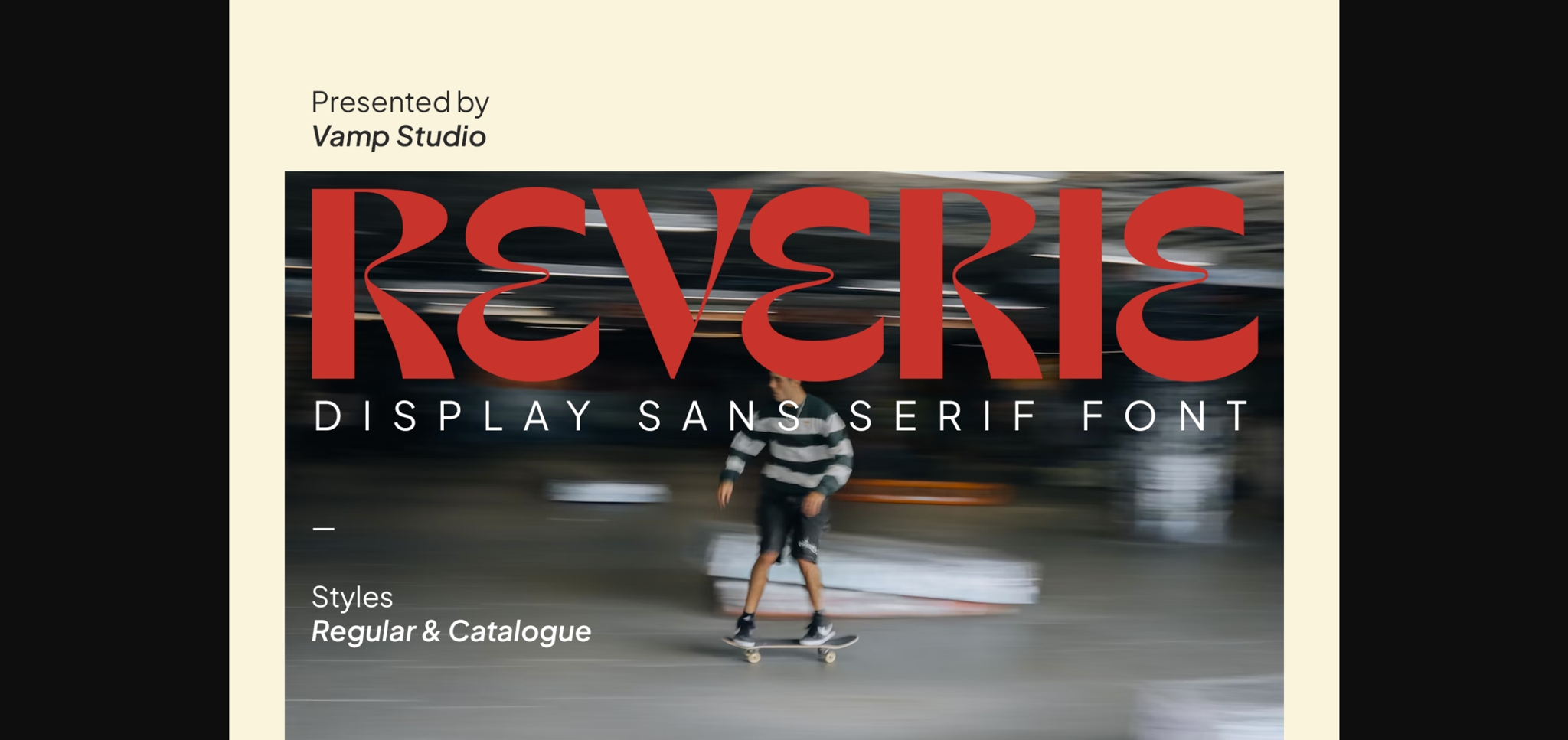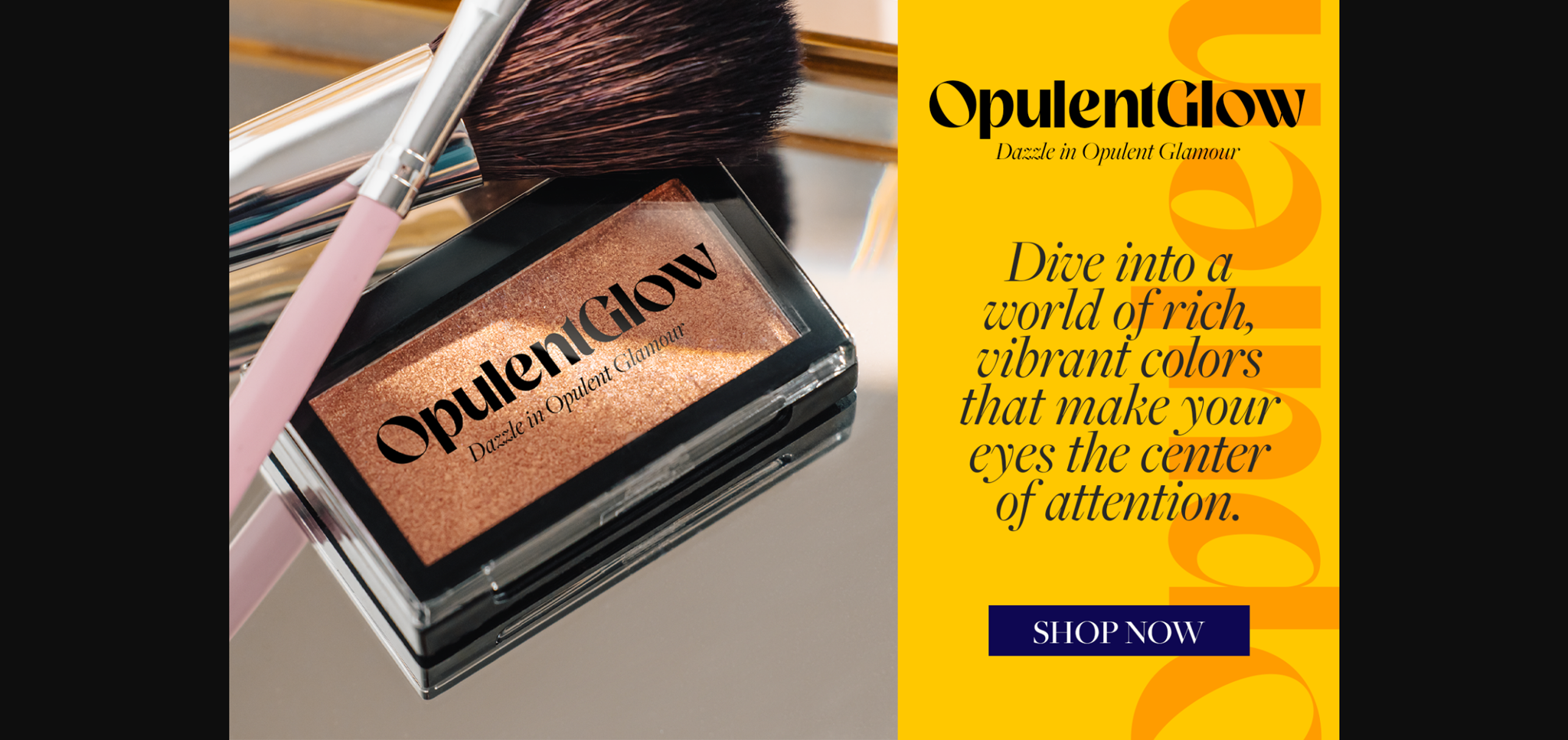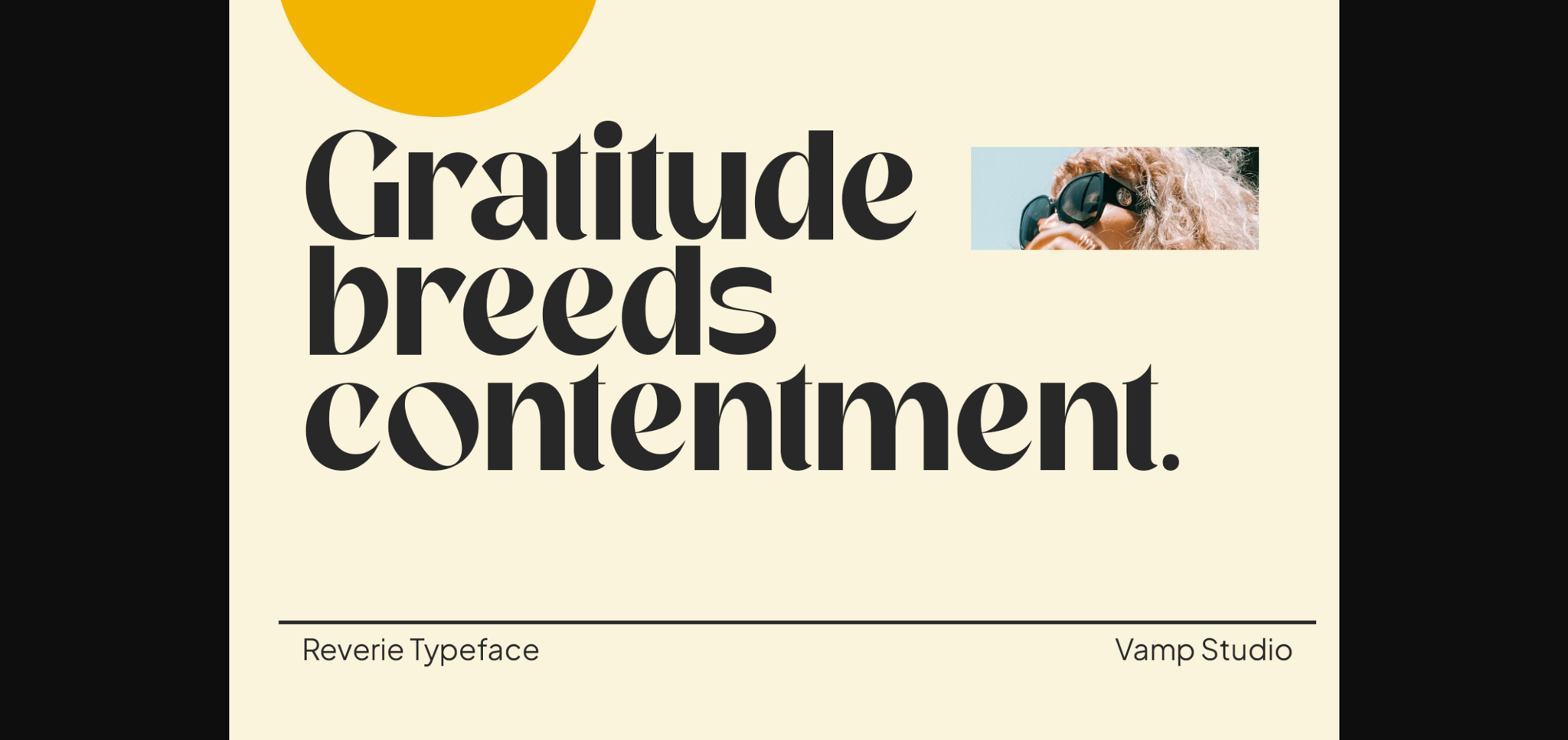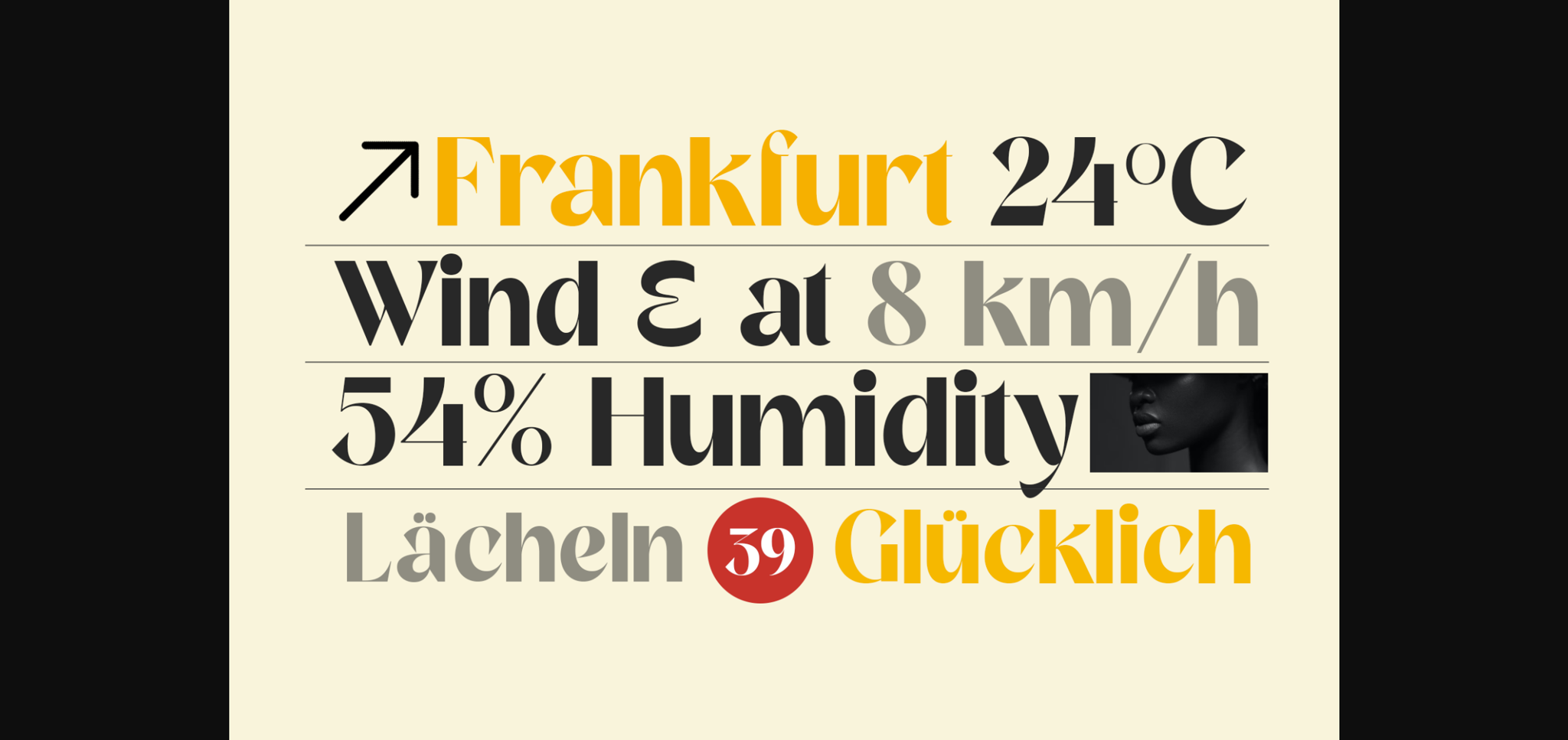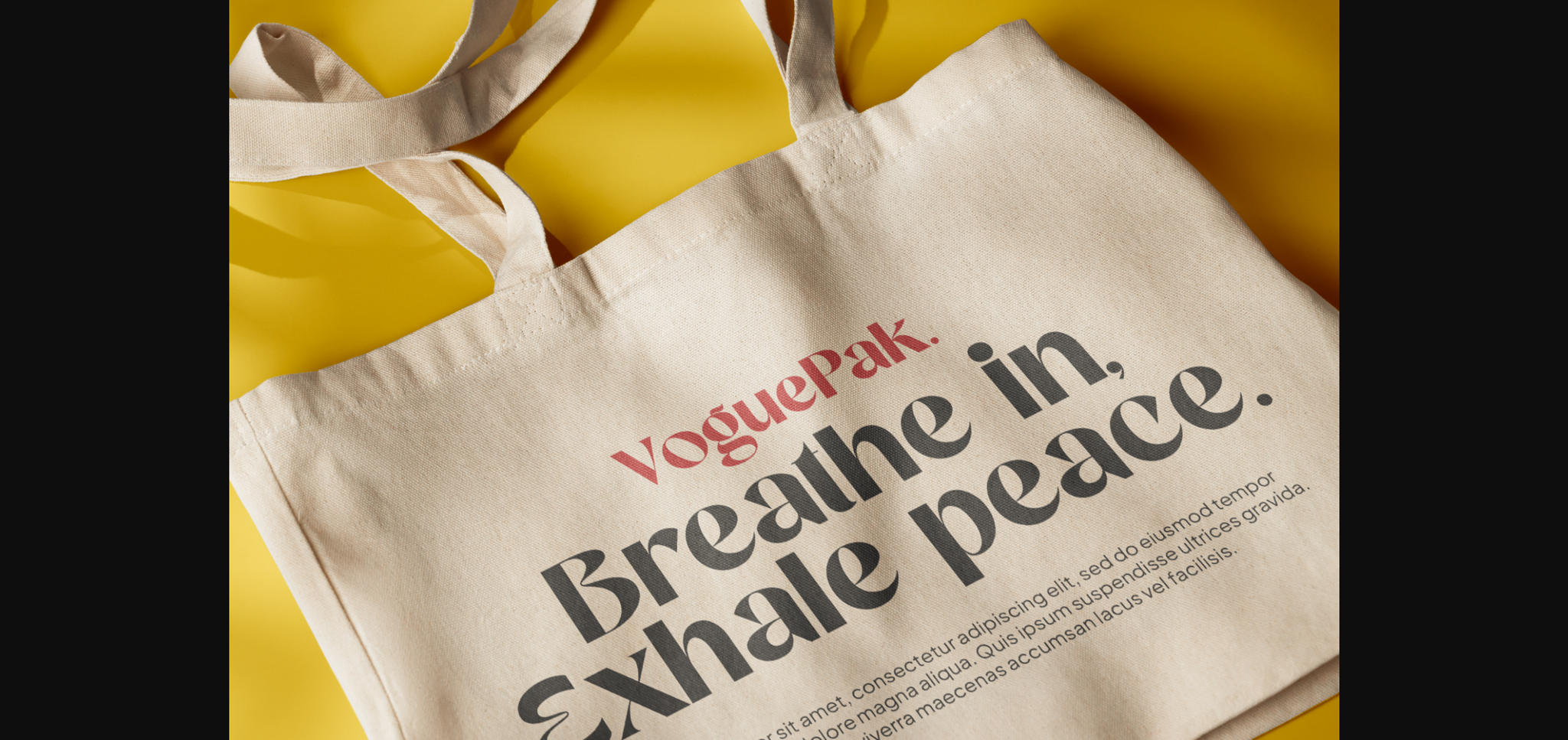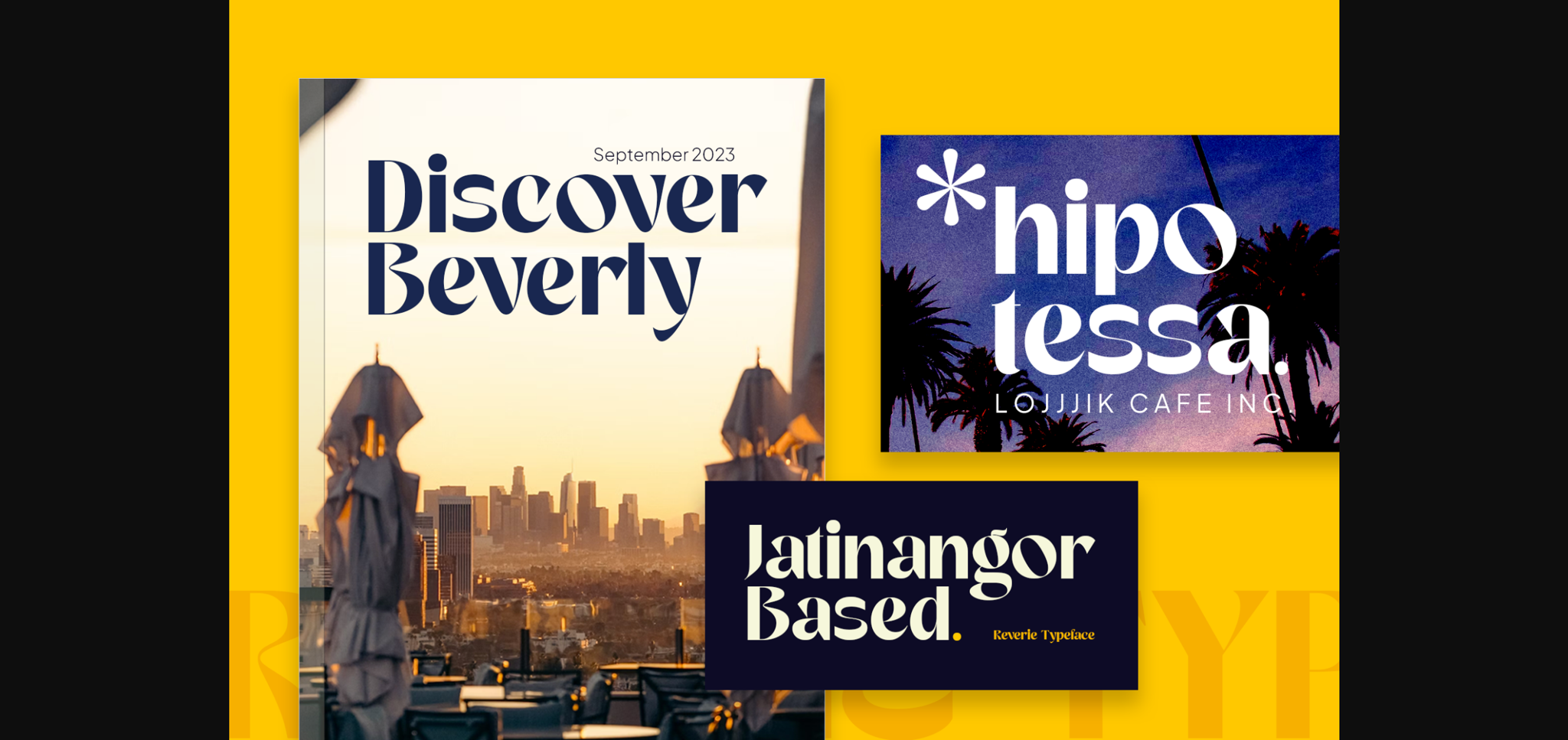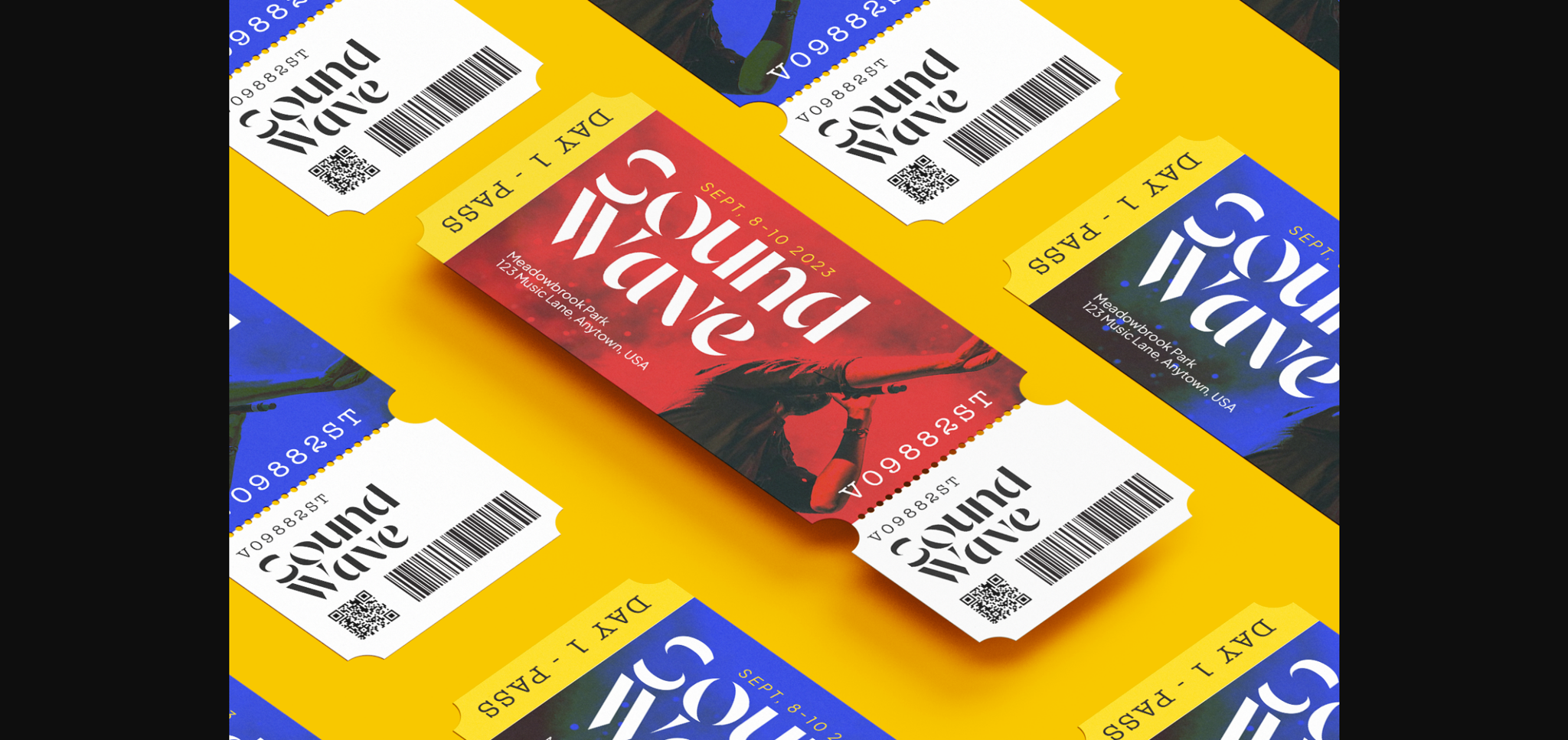
About Reverie Font
Reverie is a modern elegant sans serif typeface. This font looks very simple, clean, and elegant. Specially designed by skilled hands makes this font is the perfect fit for all your big projects. Reverie is perfect for branding projects, logo, wedding designs, social media posts, advertisements, product packaging, product designs, label, photography, watermark, invitation, stationery and any projects that need handwriting taste.